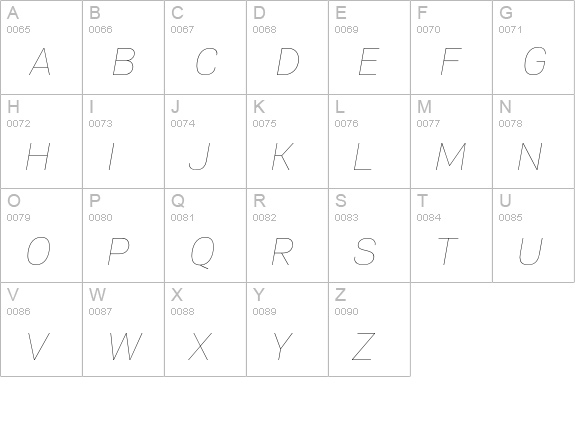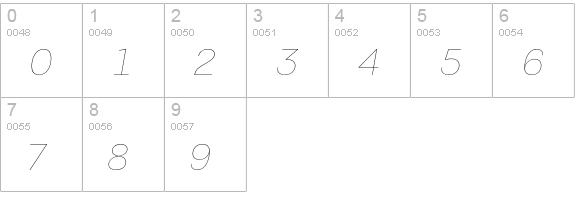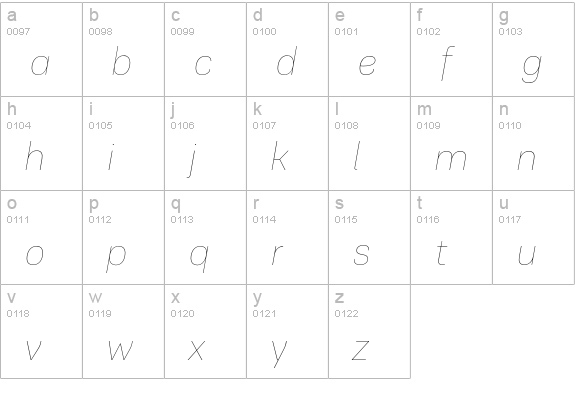
PFEncoreSansPro-UltraThinItalic Font Details
PFEncoreSansPro-UltraThinItalic is a stunningly elegant and delicate typeface that exudes sophistication and modernity. Its ultra-thin weight and sleek italic design make it perfect for adding a touch of sophistication to any design project. Whether you're creating sleek branding materials, elegant wedding invitations, or stylish editorial layouts, this font is sure to make a statement. The graceful slant of the italicized characters adds a sense of movement and fluidity to the text, making it a versatile choice for both display and body text. The clean lines and precise detailing of PFEncoreSansPro-UltraThinItalic give it a refined and polished appearance that is perfect for projects that require a touch of understated luxury. And the best part? PFEncoreSansPro-UltraThinItalic is available for free download at FontsMarket.com. So go ahead and elevate your designs with this exquisite typeface that combines beauty, elegance, and sophistication in one stunning package.